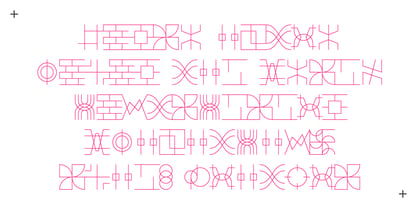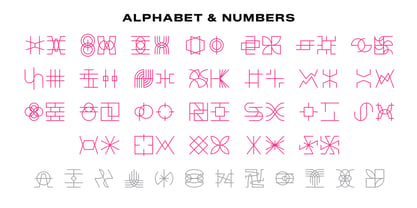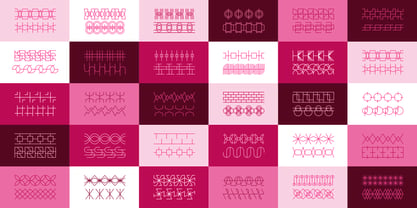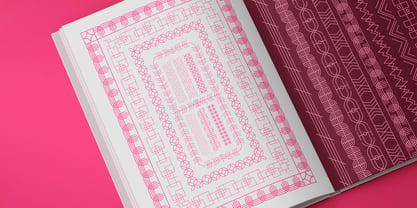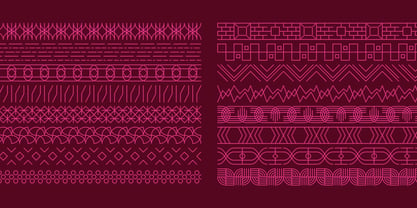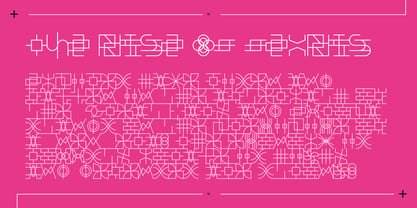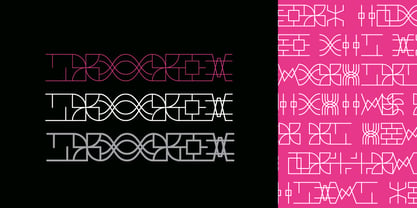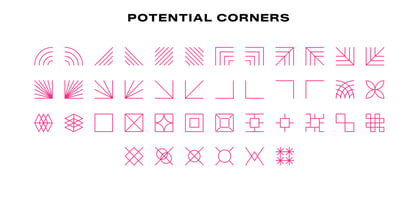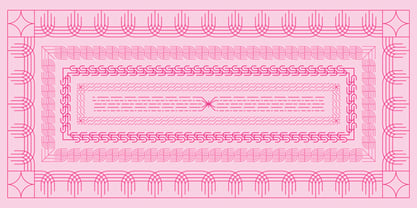
Tessera
by Thomas Ramey Design
The Tessera Font Family was designed by Thomas Ramey and published by Thomas Ramey Design. Tessera contains 4 styles and family package options. More about this family
Tessera is a modular display typeface designed as a tool for rapid visual elevation—built for designers and brands who want to transform simple compositions into something layered, rhythmic, and expressive with minimal effort. At its core, Tessera is a system of repeatable parts. Each glyph is constructed as an abstracted, self-referential unit—forms derived from their own structure, then distilled, mirrored, or extended into continuous patterns. Some characters remain closer to their origins, while others dissolve almost entirely into geometry, creating a spectrum between legibility and ornament. All glyphs share a common grid, allowing them to connect seamlessly in sequence. When set, Tessera moves beyond traditional typography, forming uninterrupted bands of pattern that can function as borders, textures, or structural elements within a layout. The result is a typeface that behaves less like language and more like a visual system—capable of building complexity through repetition alone. Balancing precision with variation, Tessera draws from architectural motifs, textile design, and schematic linework. Angular constructions sit alongside looping, interwoven forms, giving designers a range of visual voices within a single, cohesive framework. Whether used sparingly as a graphic accent or extended into dense fields of pattern, Tessera offers a fast, flexible way to introduce depth, movement, and cohesion—turning even the simplest inputs into something distinctly crafted.
Designers: Thomas Ramey
Foundry: Thomas Ramey Design